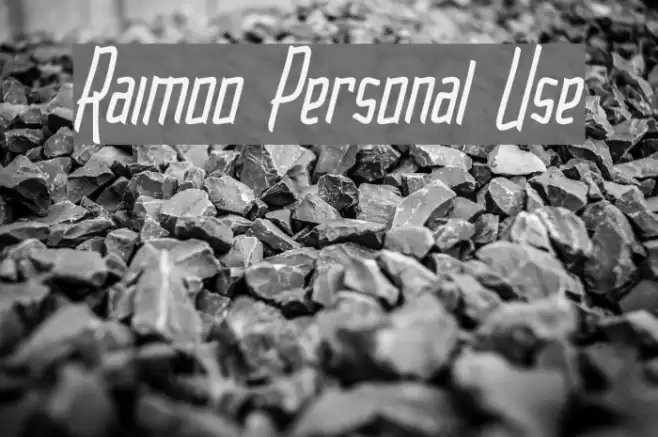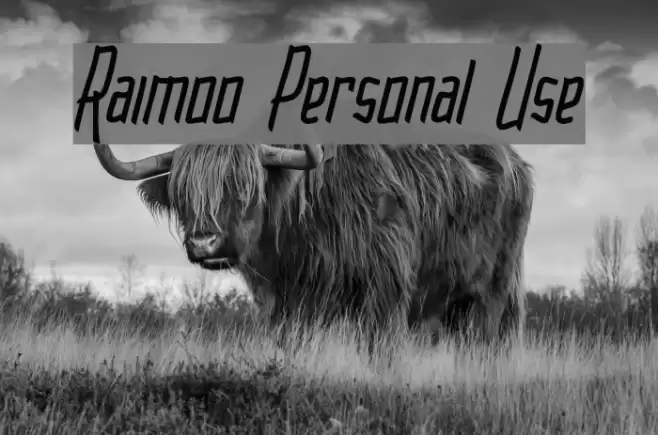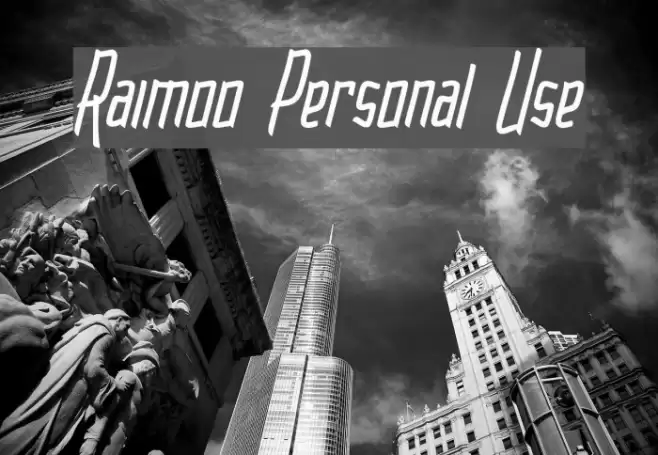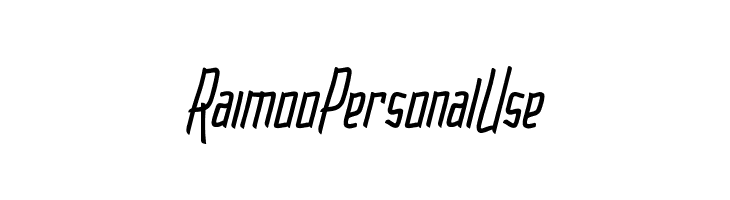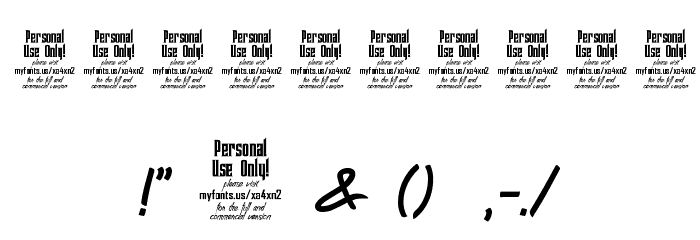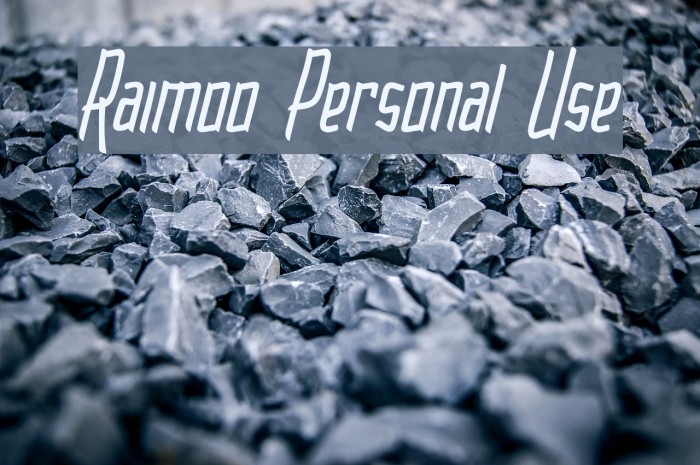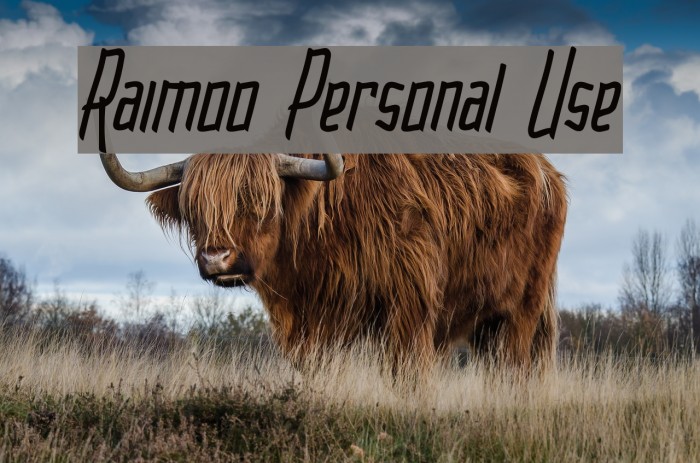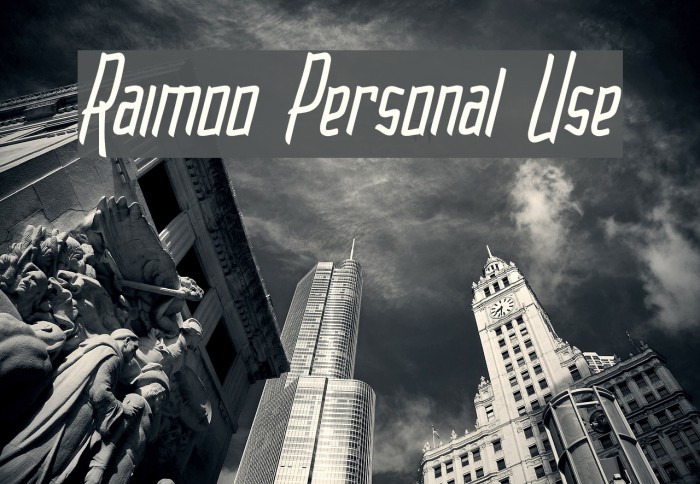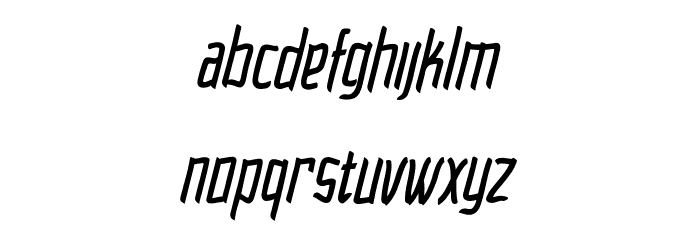
Raimoo Personal Use Font
Raimoo Personal Use Description
This font features a dynamic and energetic style with elongated, slightly slanted characters that convey a sense of motion and modernity. The uppercase letters are tall and narrow, with sharp angles and a consistent stroke width that adds to its sleek appearance. The lowercase letters maintain the same angular style, providing a cohesive look across the typeface. The numerals and special characters follow the same design principles, ensuring uniformity. This font's unique style makes it stand out, ideal for projects that require a bold and contemporary aesthetic.
A dynamic, modern font with elongated, slanted characters and consistent stroke width from Uncategorized fonts.
- Proposed Projects: Ideal for branding, posters, and modern design projects that require a bold, energetic look.